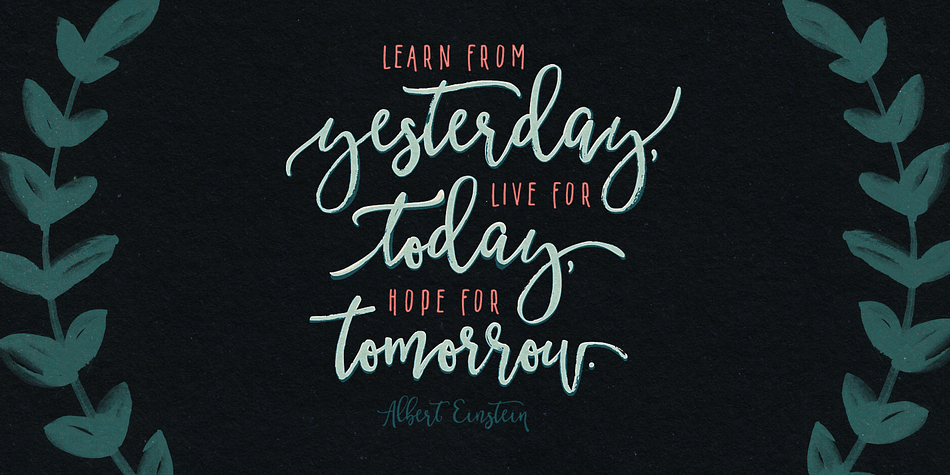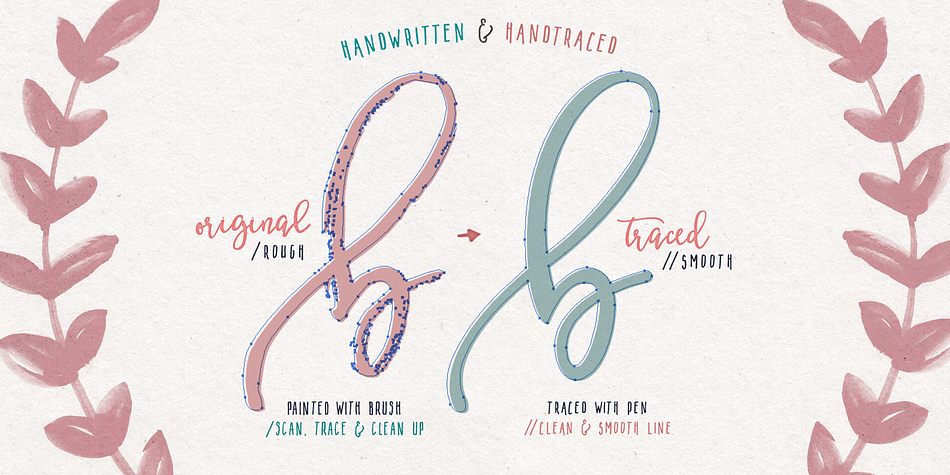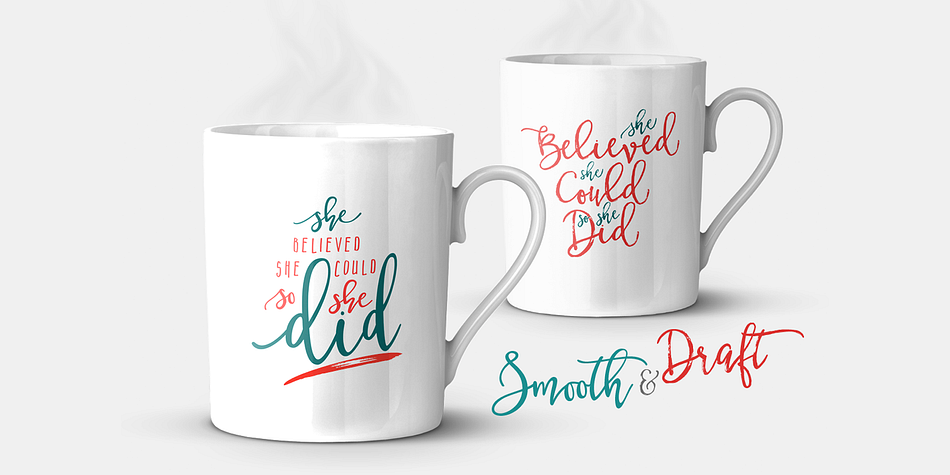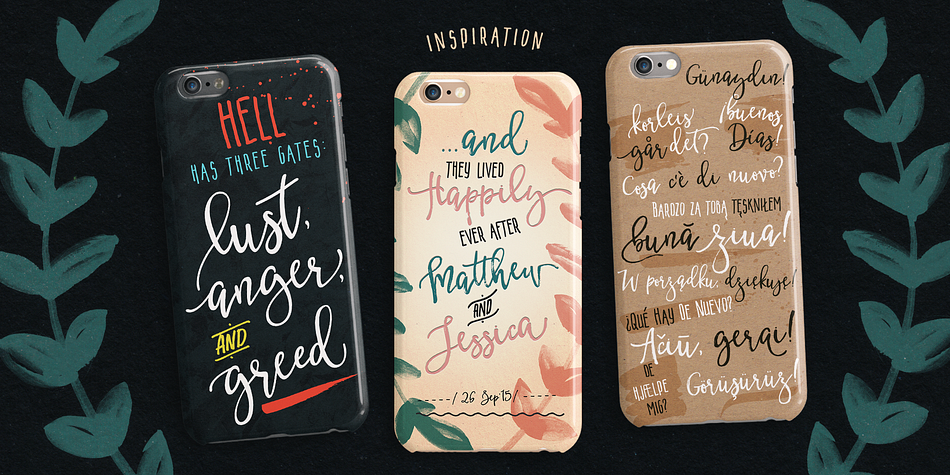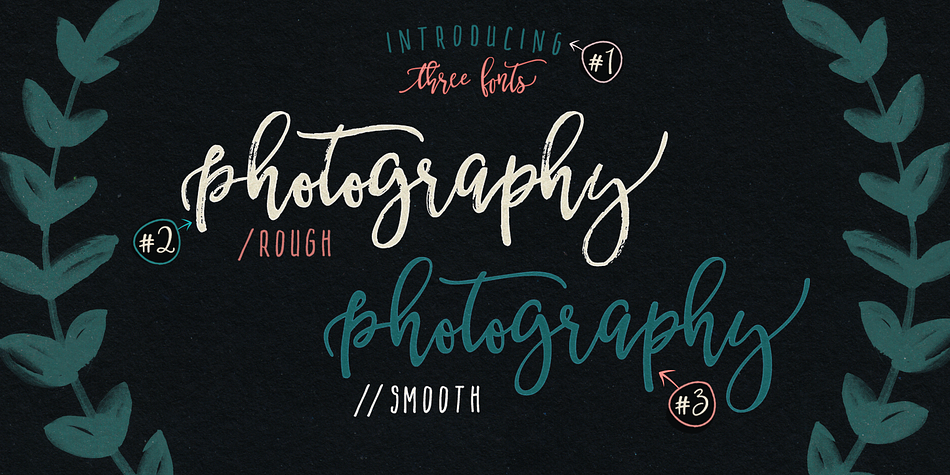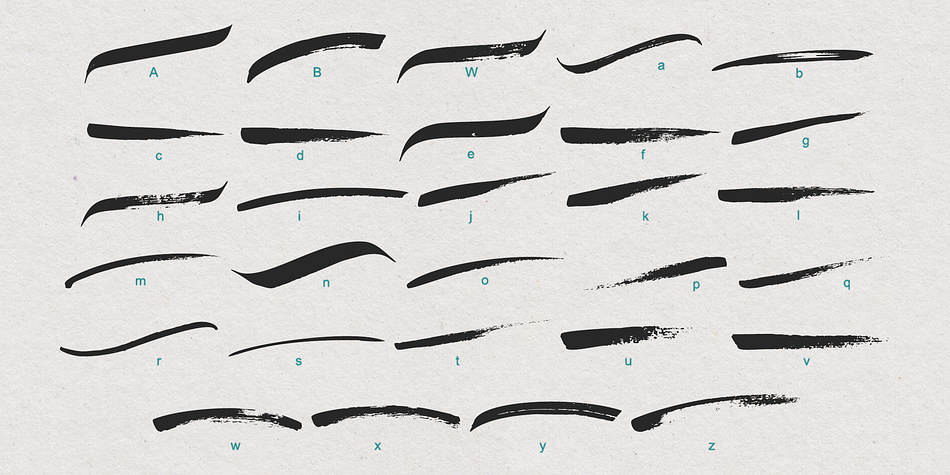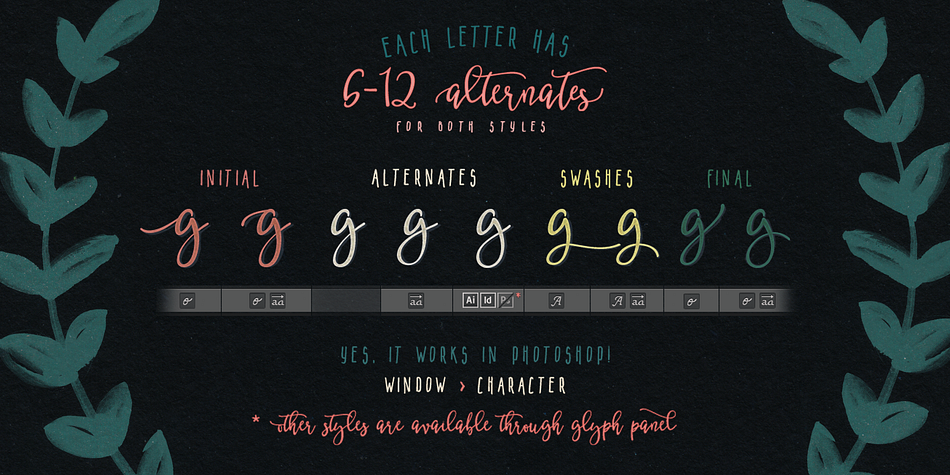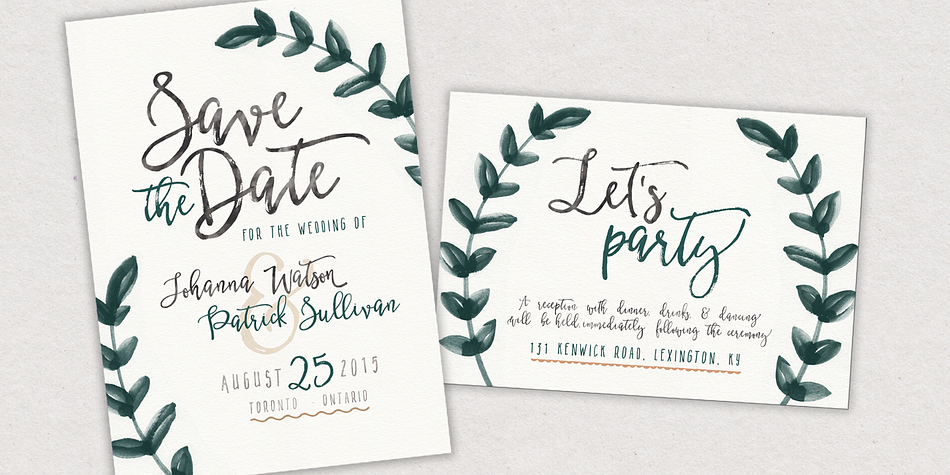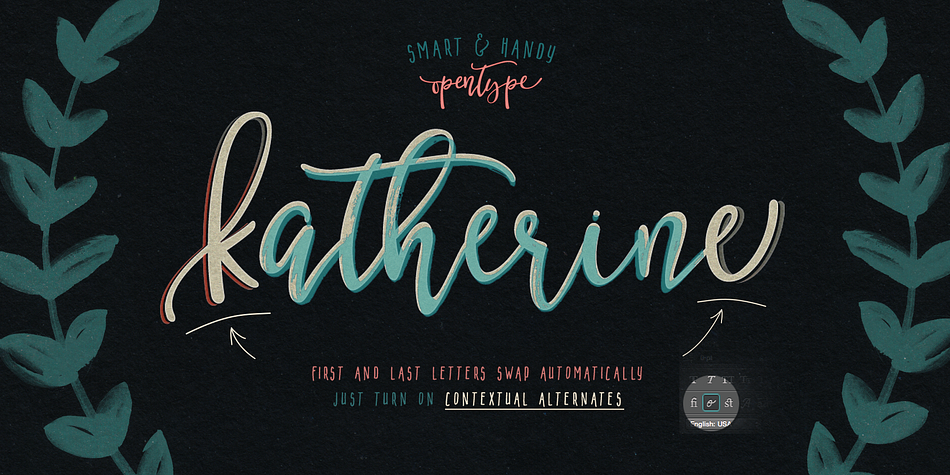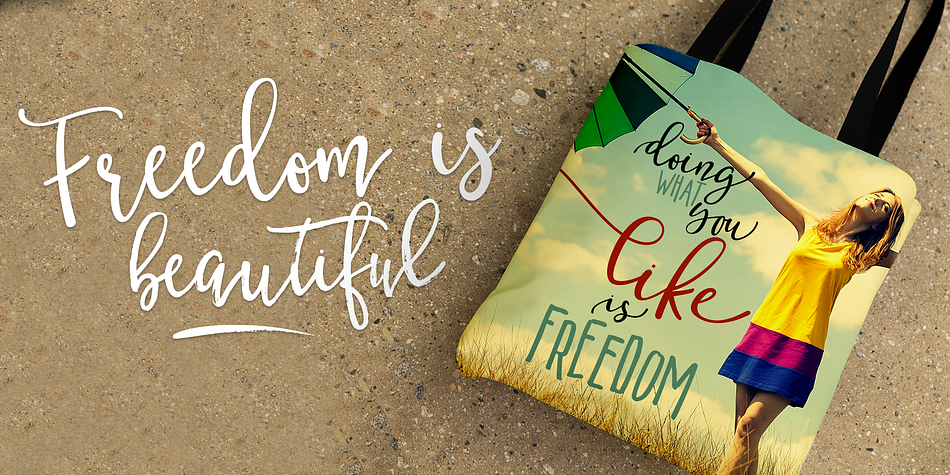
Designed by Dmitrii Mikitenko, BetterFly is a multiple classification font family. This typeface has eight styles and was published by Blessed Prints.
BetterFly is handwritten modern script family with numerous alternates. You are welcome to use it for various purposes: logo, wedding invitation, headings, signatures, t-shirt, letterhead, signage, labels, posters etc.